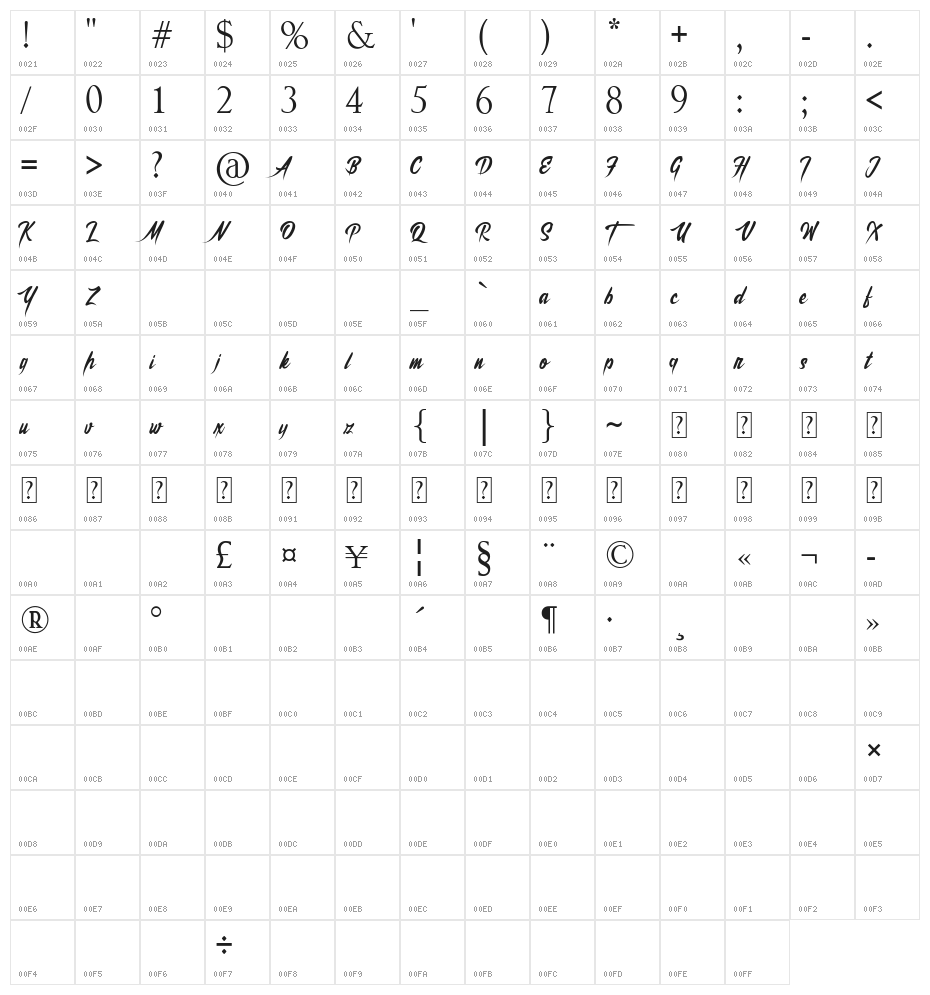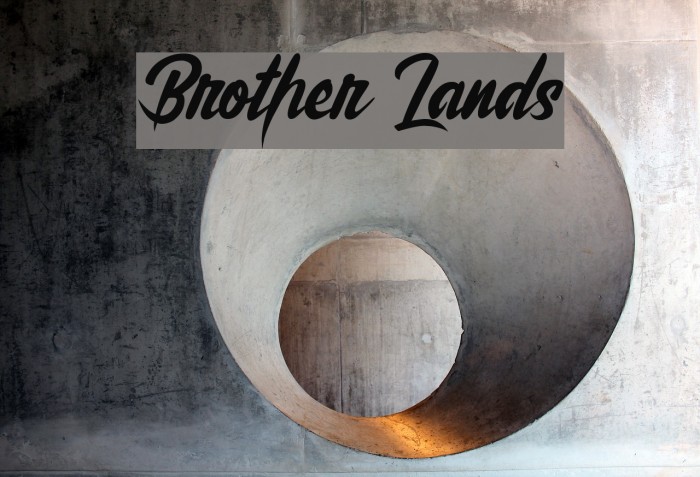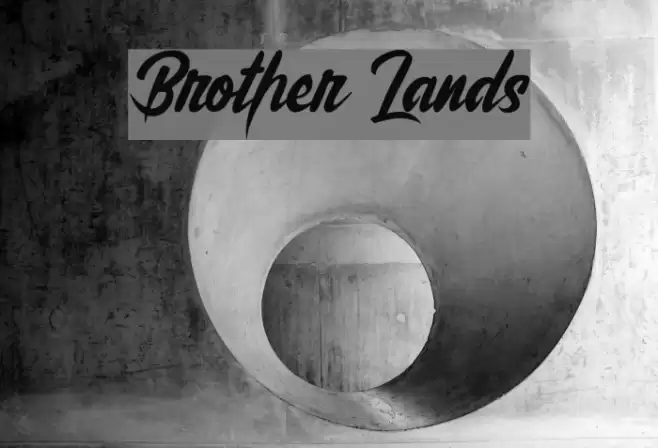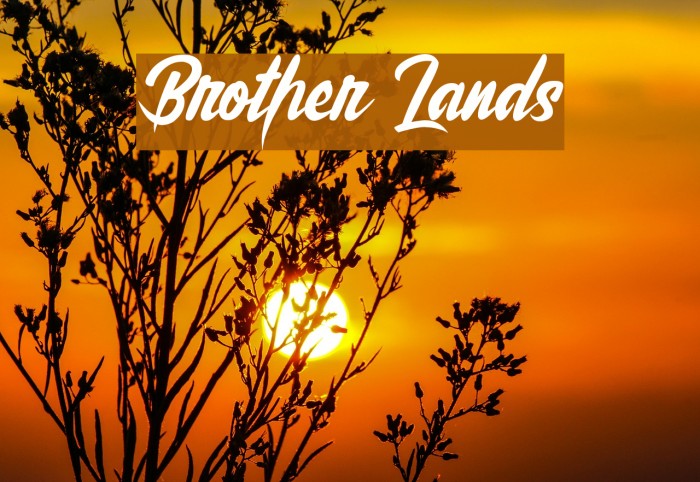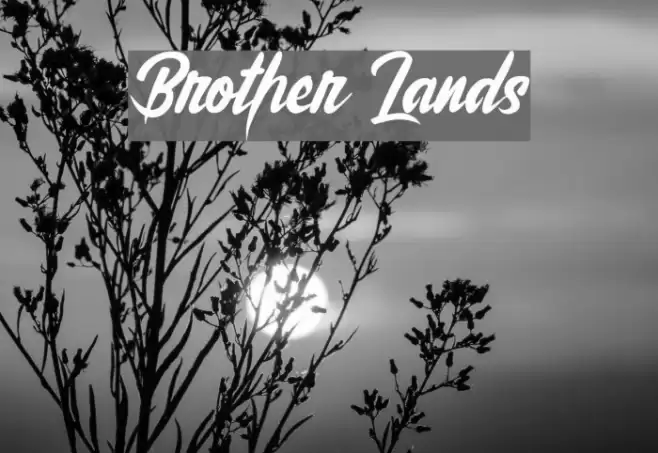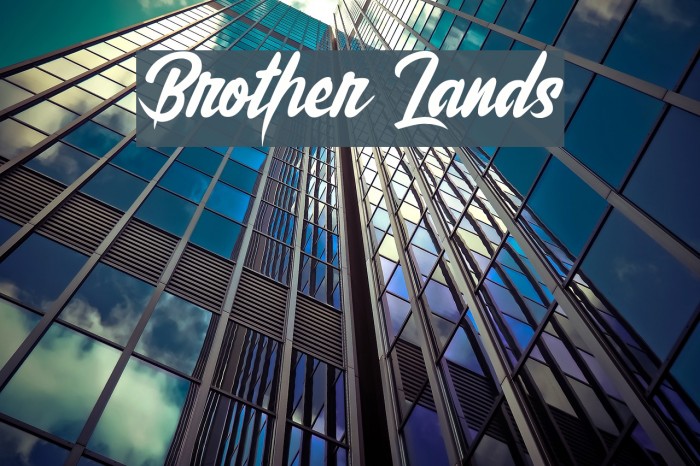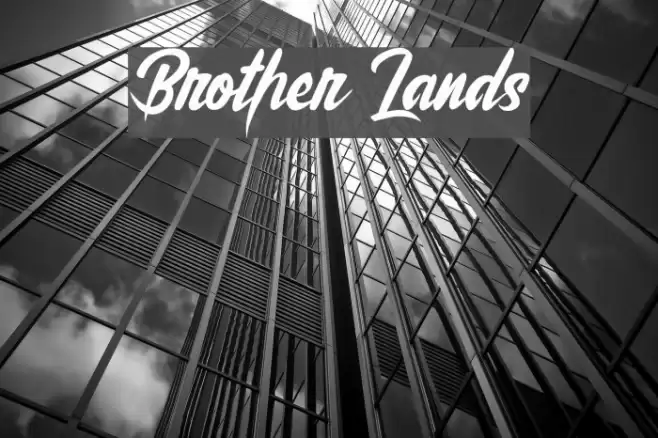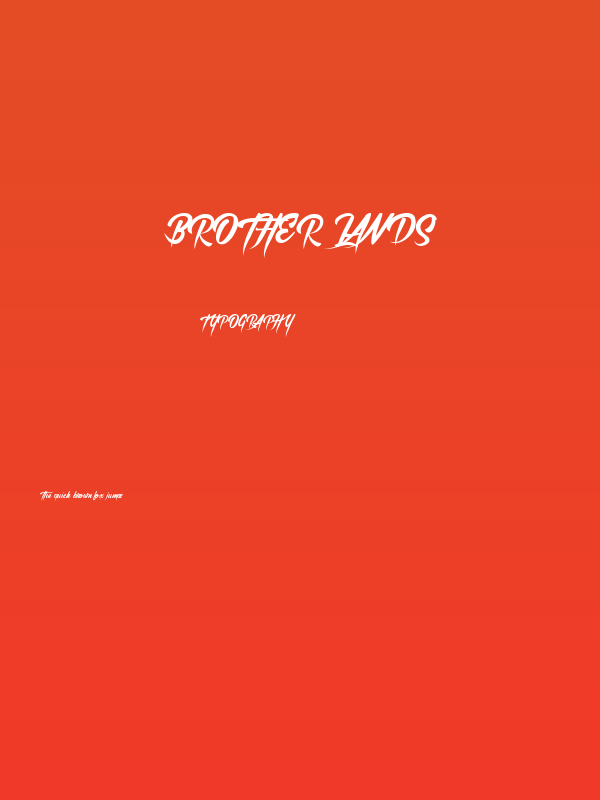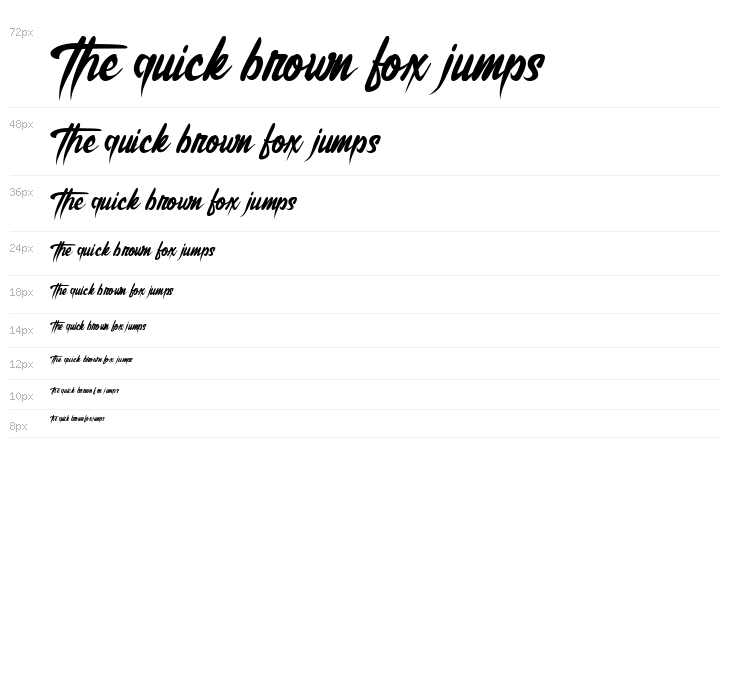
Brother Lands Font
Brother Lands Description
This font features a dynamic and expressive style, characterized by its bold, sweeping strokes and elegant curves. The uppercase letters exhibit a strong presence with sharp, angular serifs, while the lowercase letters maintain a fluid and connected appearance, reminiscent of calligraphic handwriting. The numerals are distinct and clear, complementing the overall aesthetic with their balanced proportions. Special characters are designed with flair, adding a touch of sophistication to the font's personality. This typeface is ideal for projects that require a blend of modernity and classic elegance, making it suitable for a variety of creative applications.
Use CaseLogos, Headlines, Invitations
Proposed ProjectsIdeal for branding, invitations, posters, and editorial design.